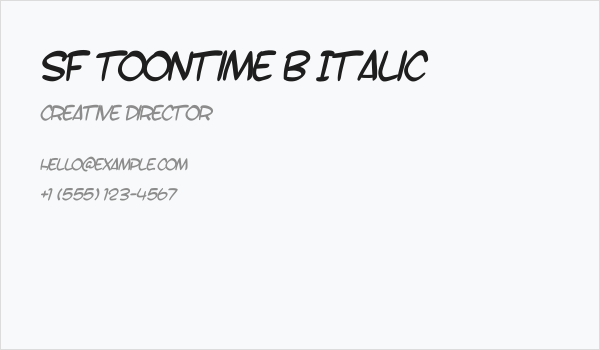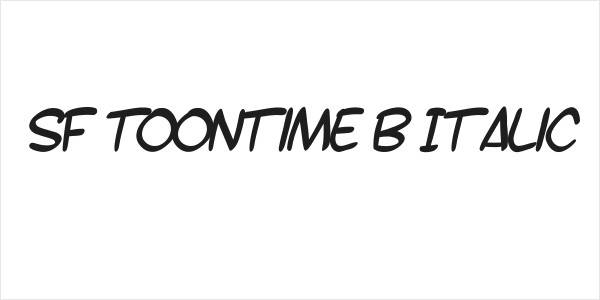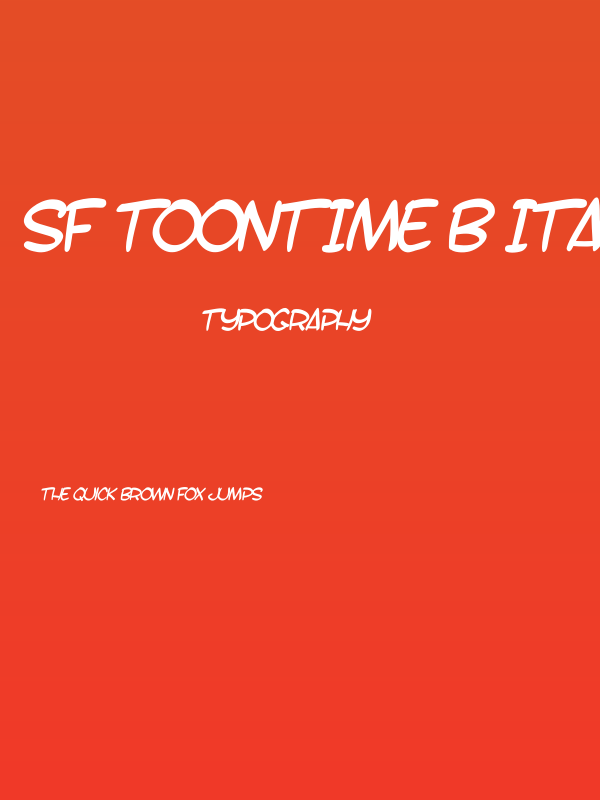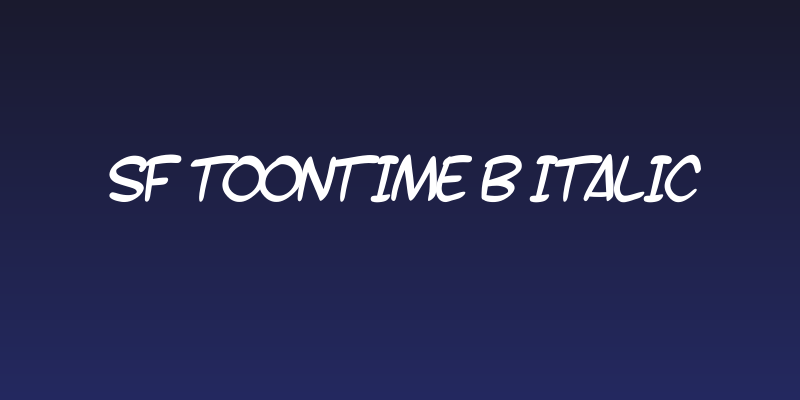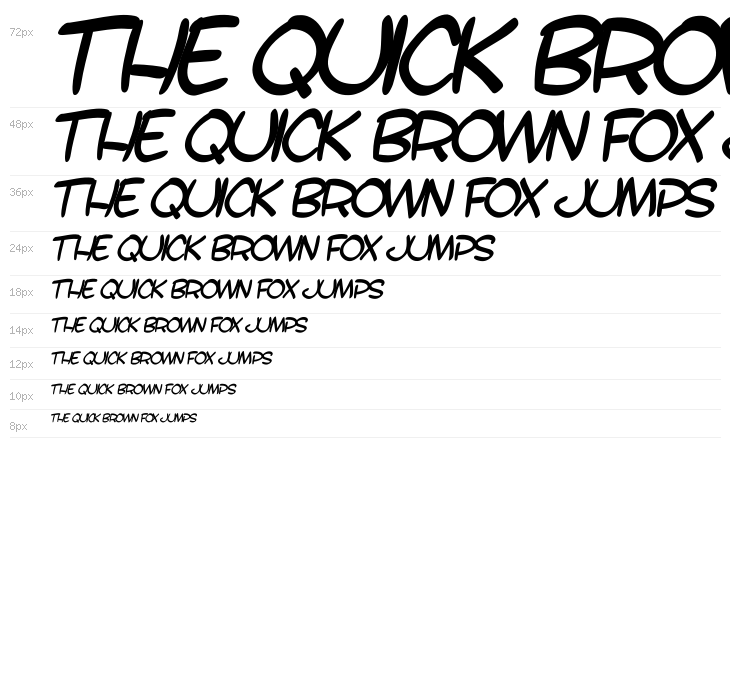
SF Toontime B Italic Font
SF Toontime B Italic Description
This playful and energetic font features a handwritten style with a bold and italicized appearance. The characters are rounded and slightly slanted, giving a sense of movement and dynamism. The strokes are consistent in thickness, providing a uniform look across all letters and numbers. The font includes both uppercase and lowercase letters, numerals, and a variety of special characters. Its informal and friendly design makes it suitable for projects that require a touch of whimsy and creativity.
| Proposed Projects | Ideal for children's books, comic strips, playful branding, and casual invitations. |